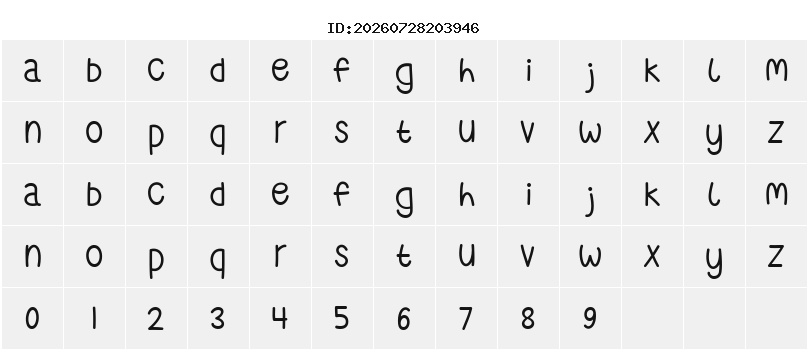
Mf The Lonely Ones Preview
• Font Name: Mf The Lonely Ones
• Full Font Name: Mf The Lonely Ones
• Designer: Misti's Fonts (Misti Hammers)
• Manufacturer: Misti's Fonts (Misti Hammers)
About Mf The Lonely Ones.ttf
Mf The Lonely Ones.ttf is a modern, elegant sans-serif font designed for ultimate readability and visual harmony. Perfect for branding, headlines, web design, and print materials.